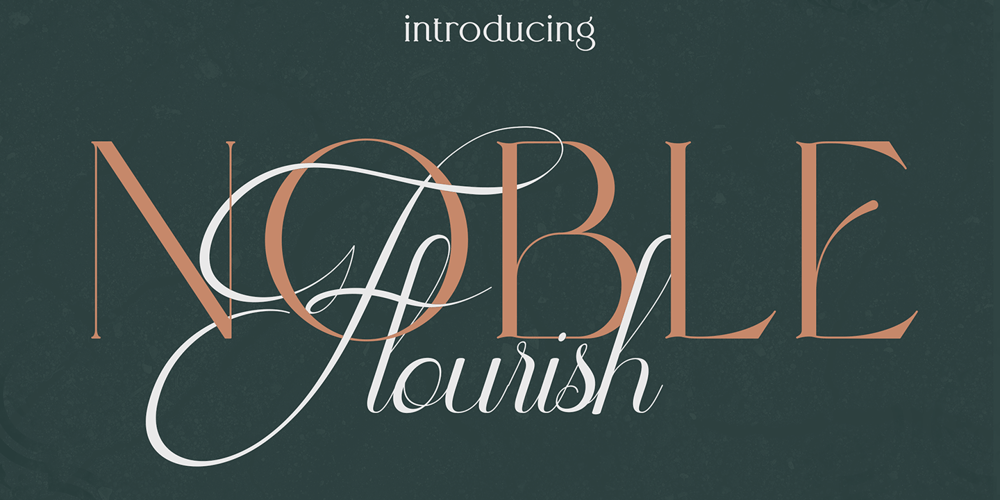
Noble Flourish Font Family was designed by Vladimir Fedotov, Plamen Petrov and published by VP Creative Shop. Noble Flourish contains 7 styles and family package options. If you’re looking for a stylish and versatile font duo for your design projects, Noble Flourish might be just what you need. This font set features a classic script and a serif typeface, which work together to create an elegant and sophisticated look.The serif font comes in six different weights, which means you can choose the perfect thickness for your headlines, body text, and other design elements. And with support for 87 different languages, you can be sure that your text will look great no matter what language you’re using.